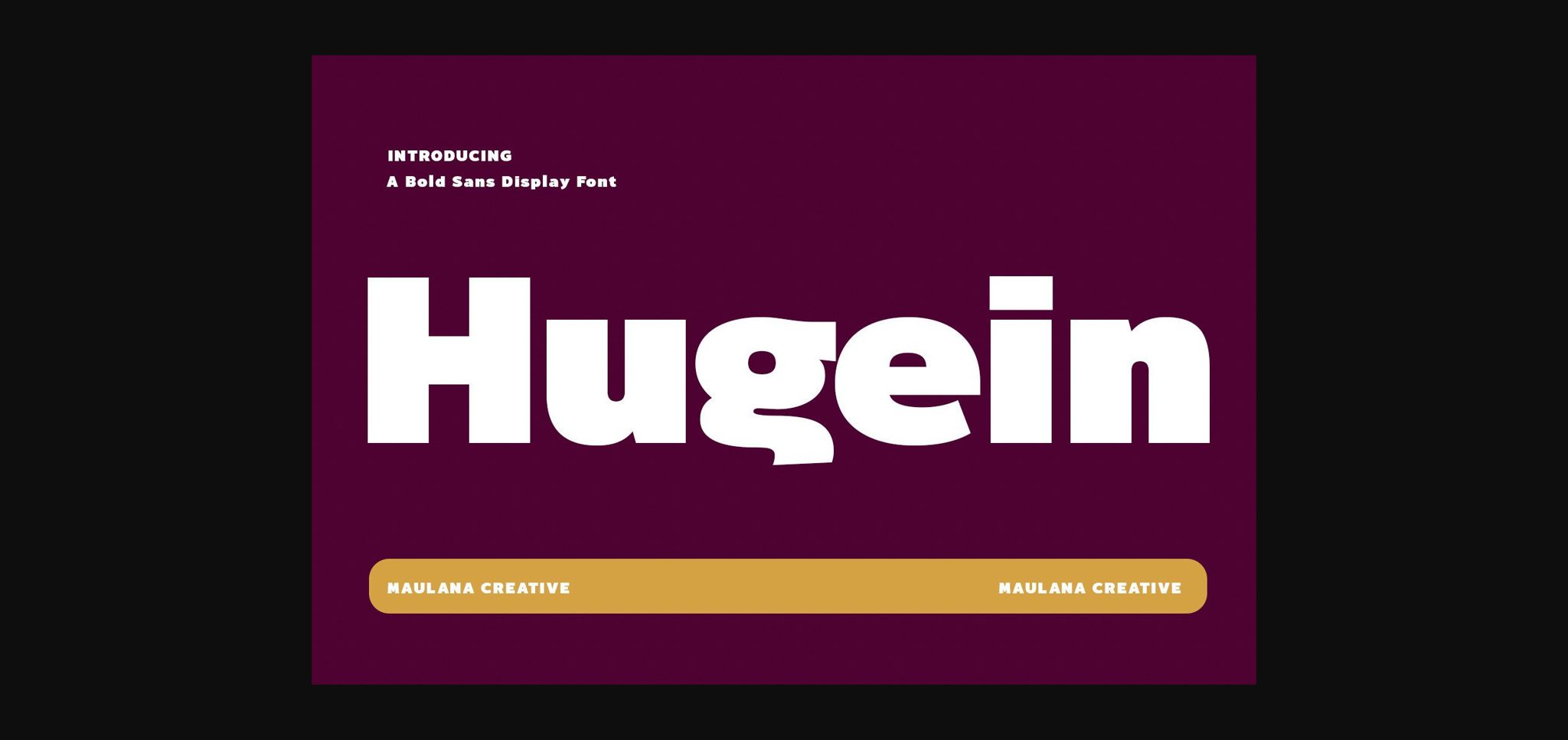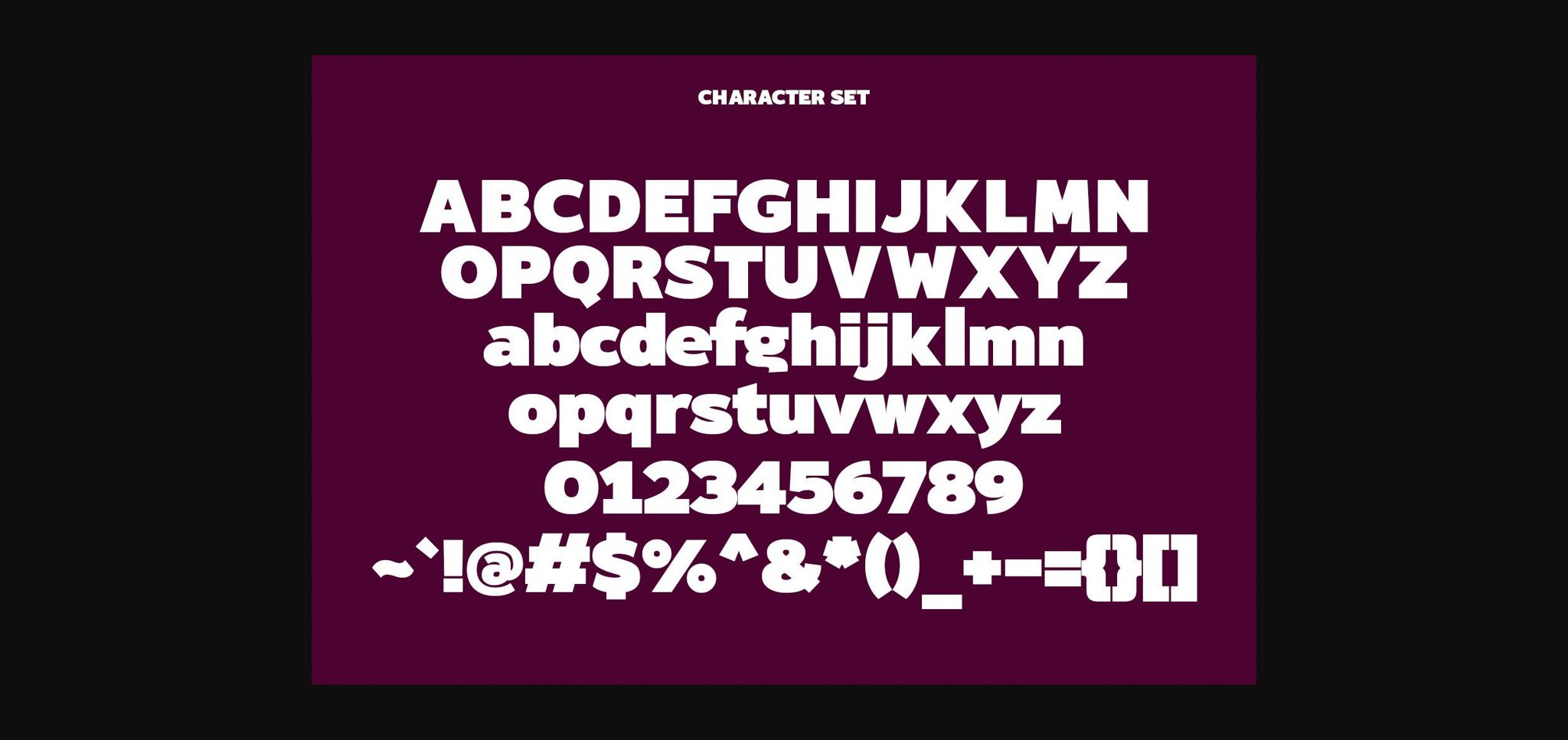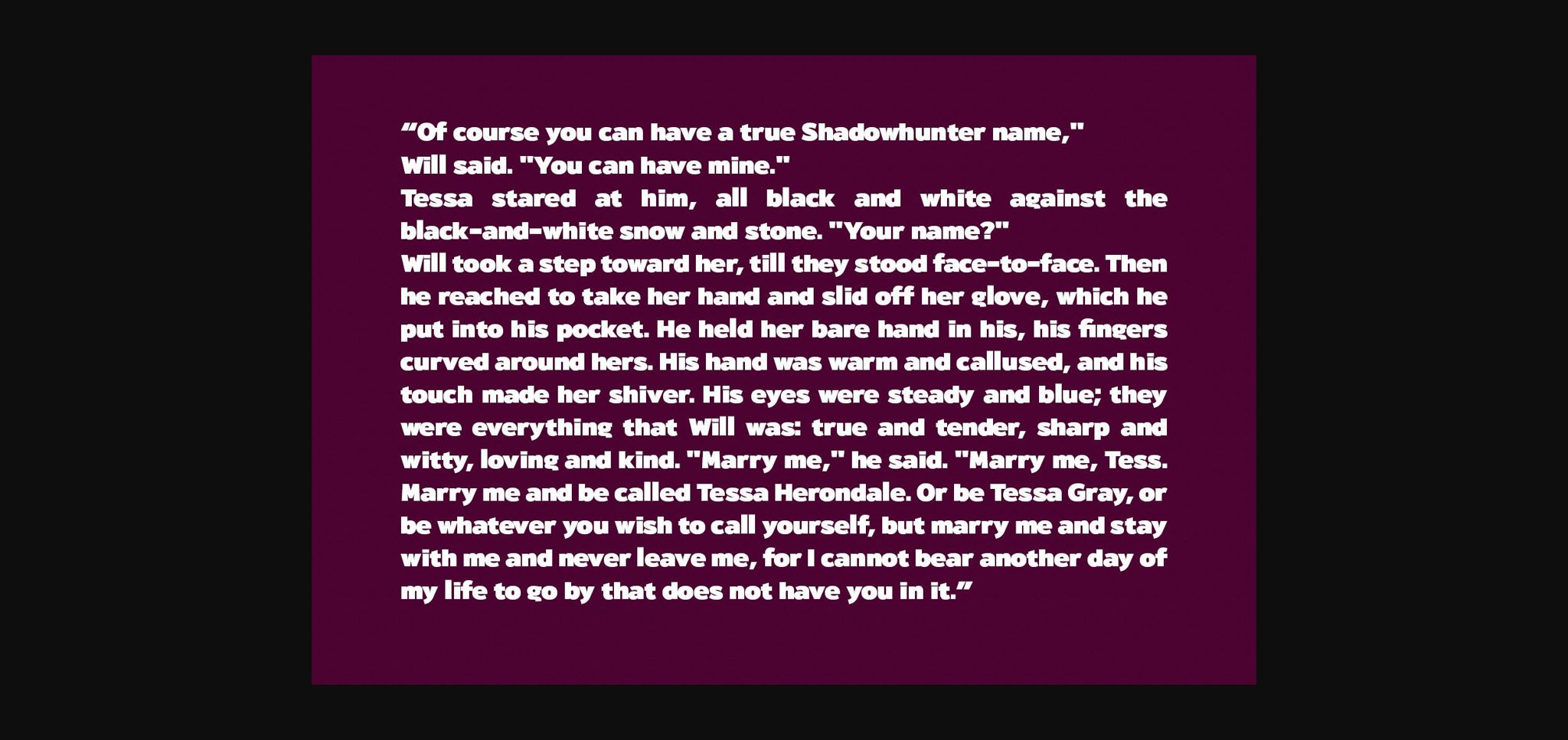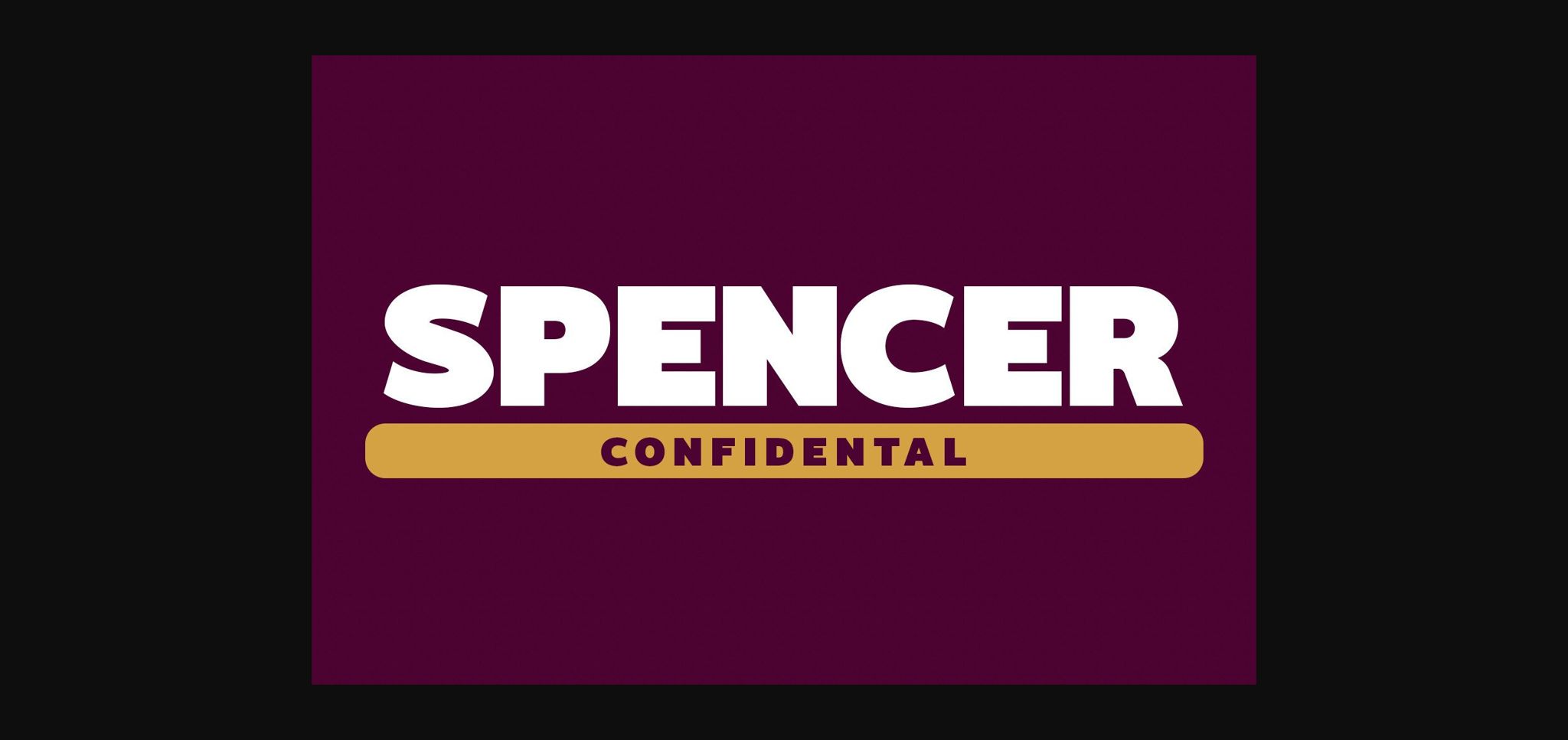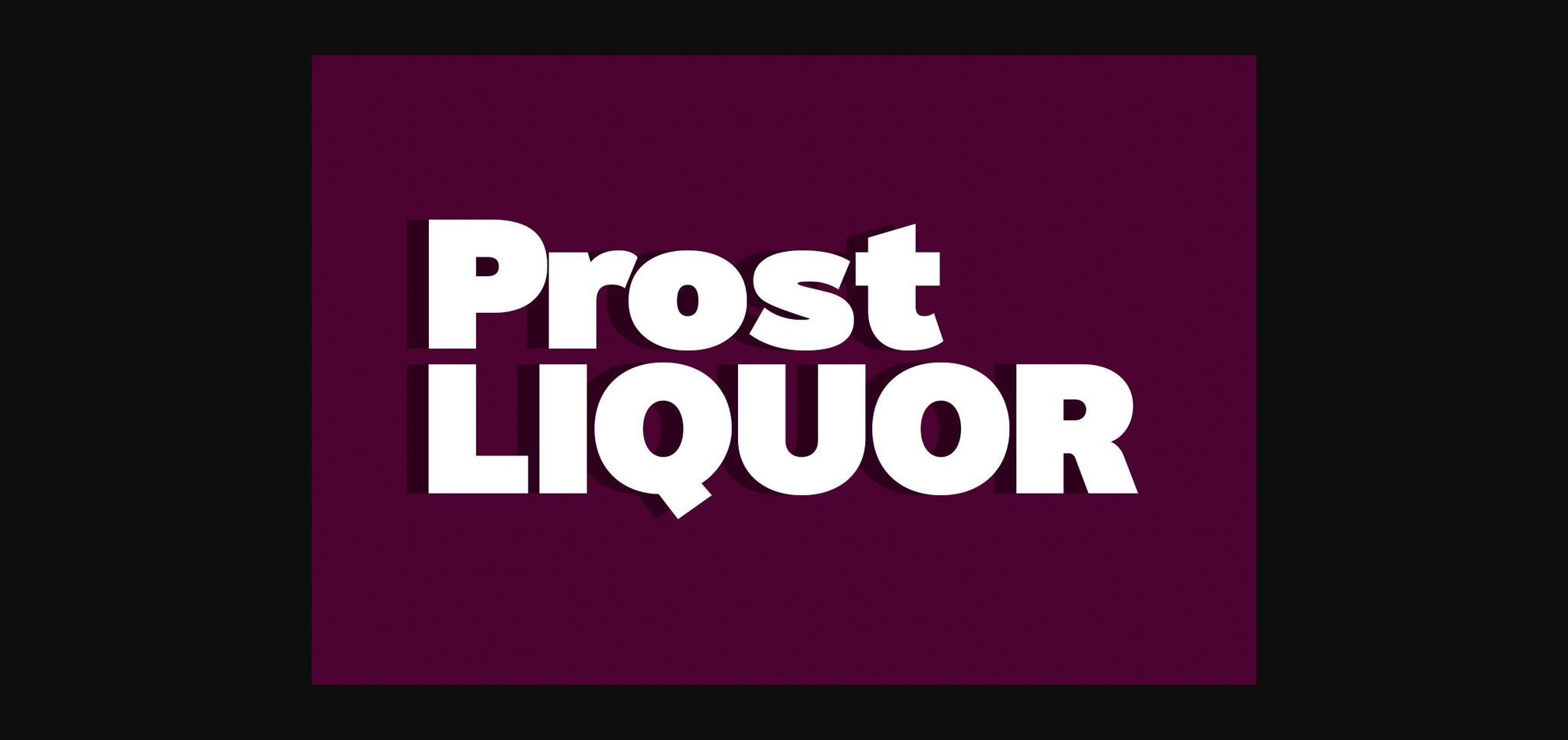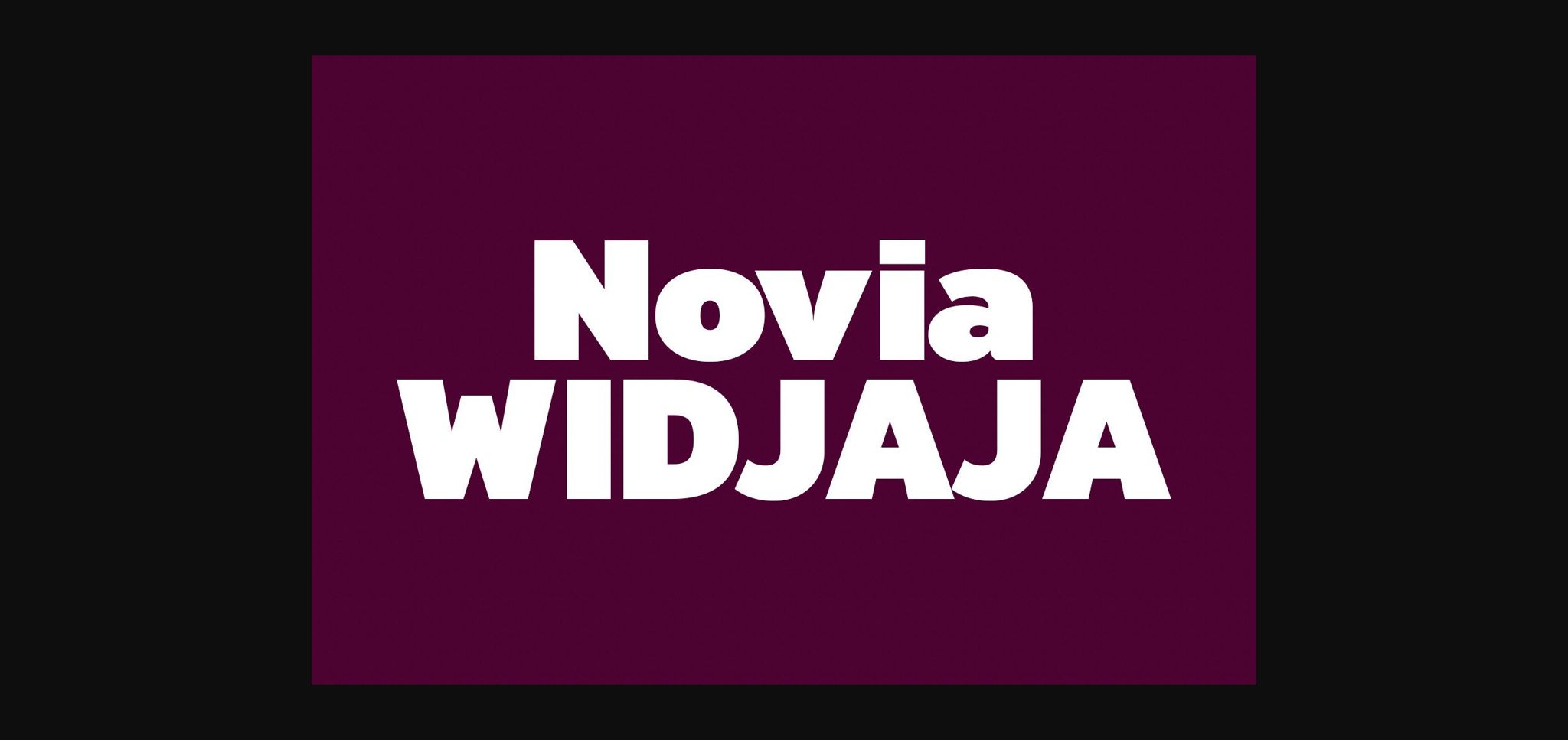
About Hugein Font
Hugein is a modern and bold sans serif font. It has a cool and energetic personality, which makes it perfect for all your trendy designs.